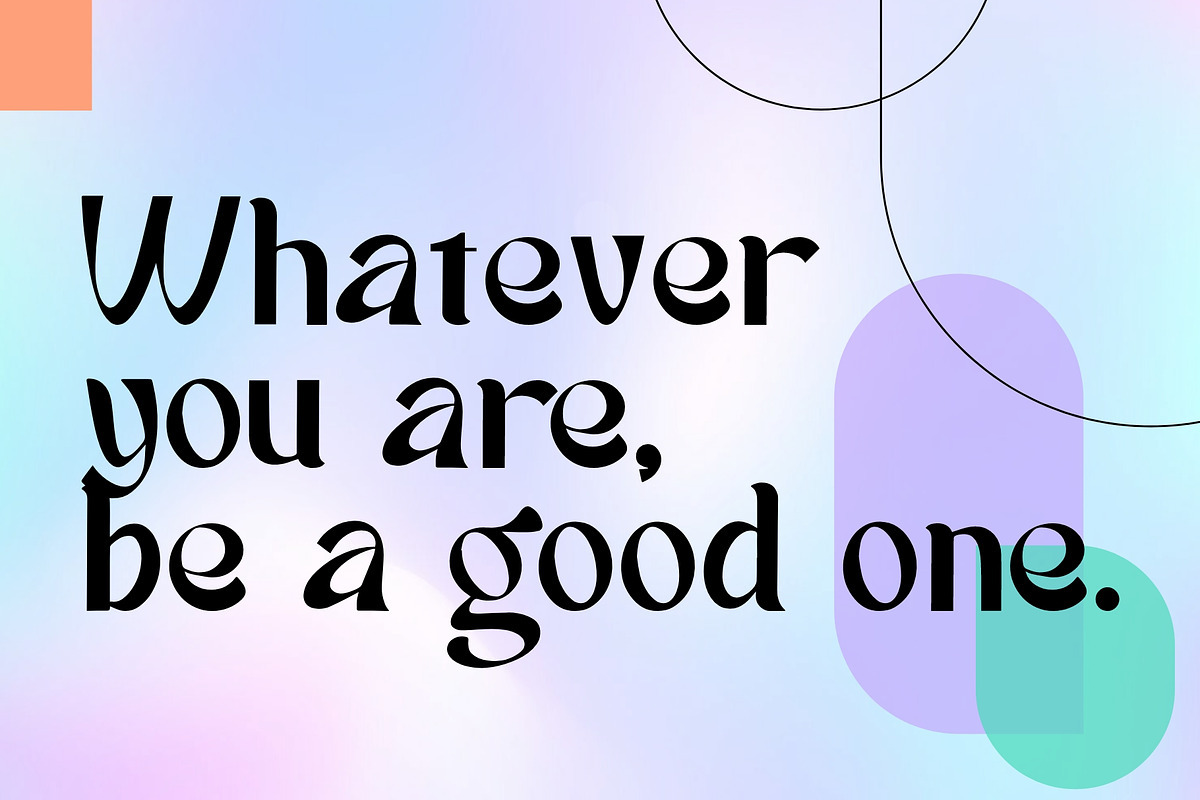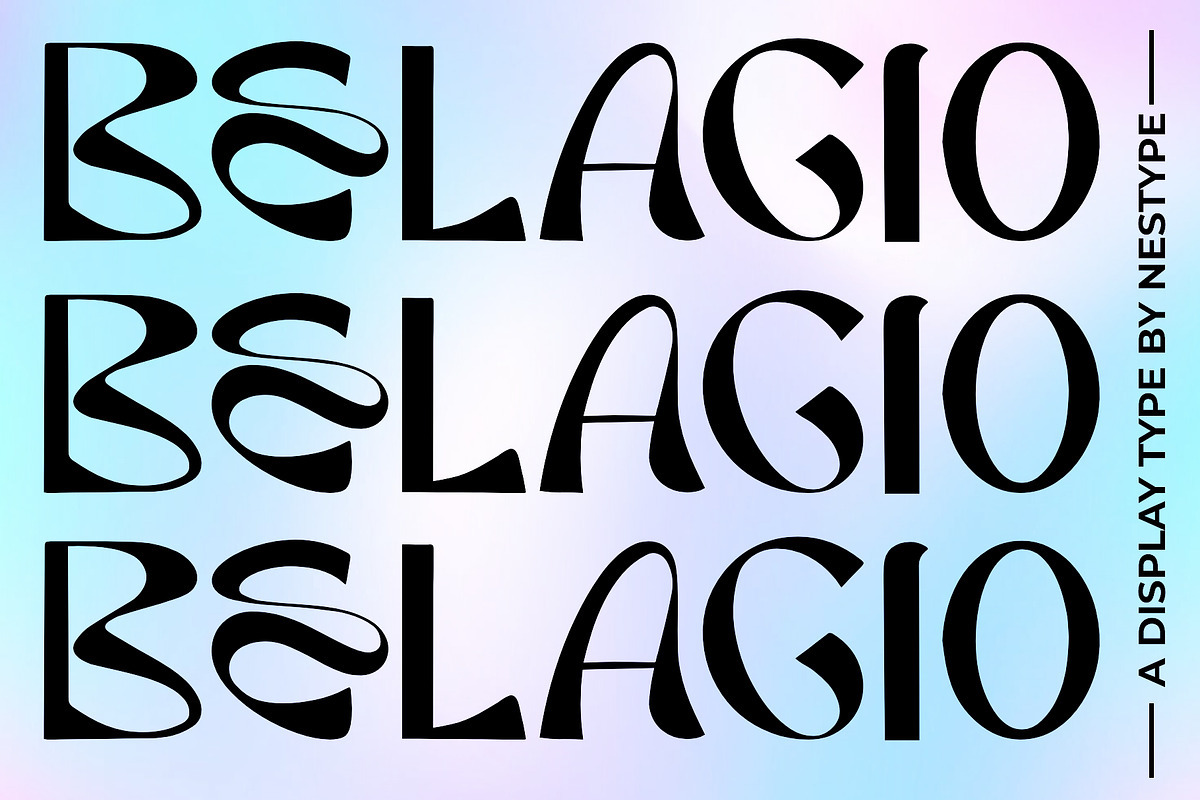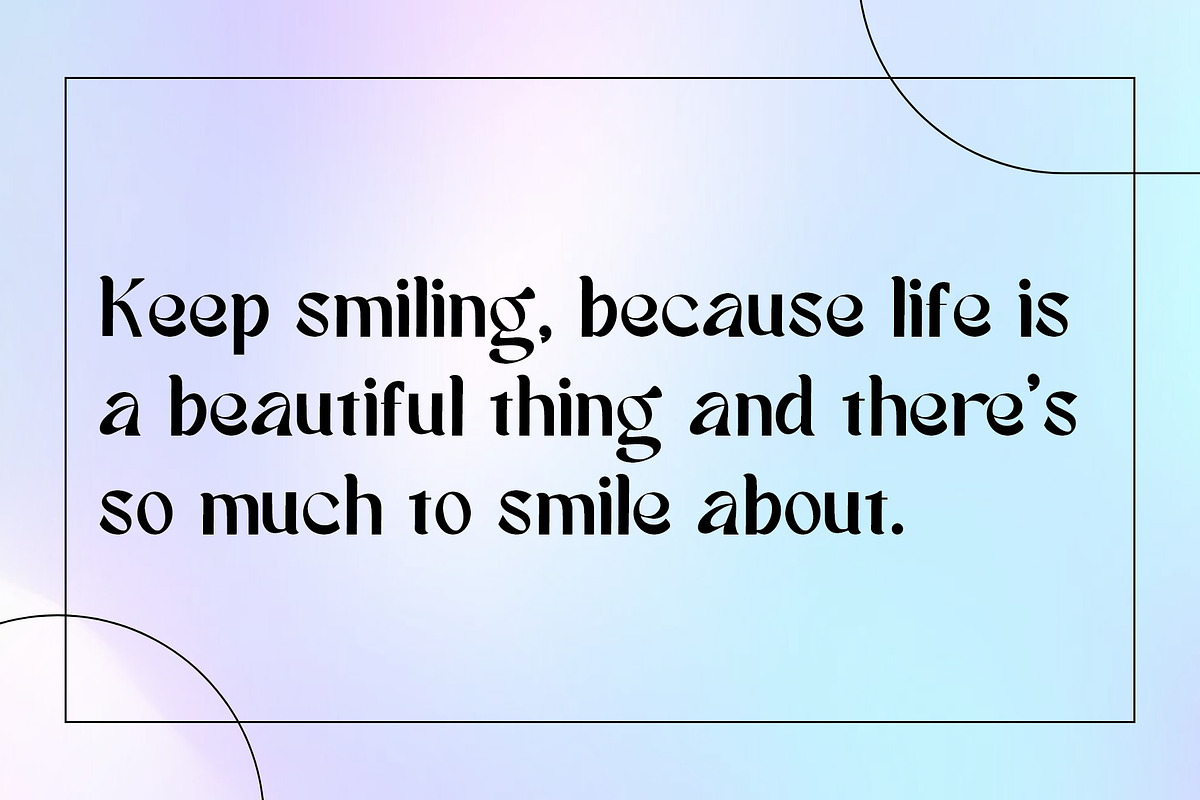
Belagio – Contrast Display Serif
Belagio is a bold and expressive display serif typeface designed for sophisticated, fashion-forward visuals. Featuring dramatic contrast, sculptural curves, fluid letterforms, and distinctive shapes, Belagio brings an artistic and editorial character to every composition.
Perfect for fashion branding, luxury logos, editorial layouts, magazine covers, beauty campaigns, posters, packaging, social media graphics, and high-end advertising. Its unconventional forms make Belagio especially suitable for projects that need a strong visual identity and a contemporary artistic edge.
Use Belagio to create striking headlines, elegant brand identities, statement typography, and memorable display compositions. Designed for designers who want something beyond a traditional serif.